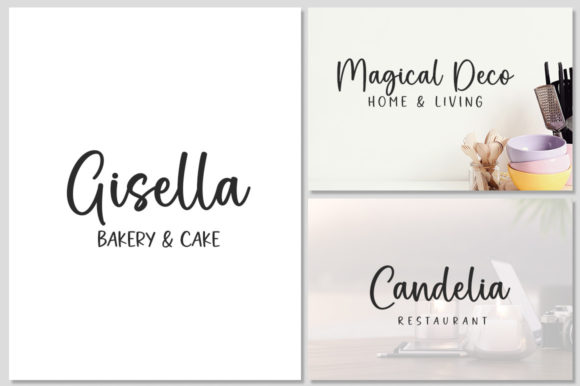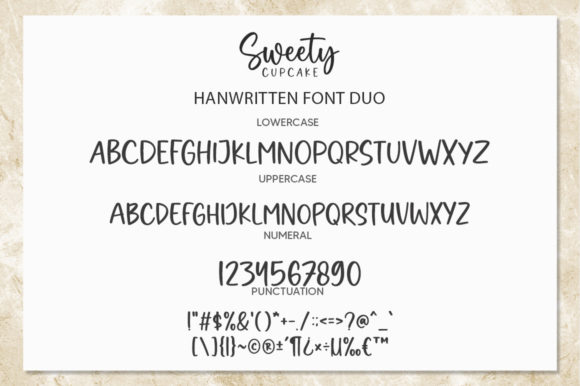
Sweet Cupcake is an elegant duo font featuring a sans serif and a flowing handwritten font. It has beautiful and well-balanced characters, and as a result, it matches a wide pool of designs.
Sweet Cupcake Font